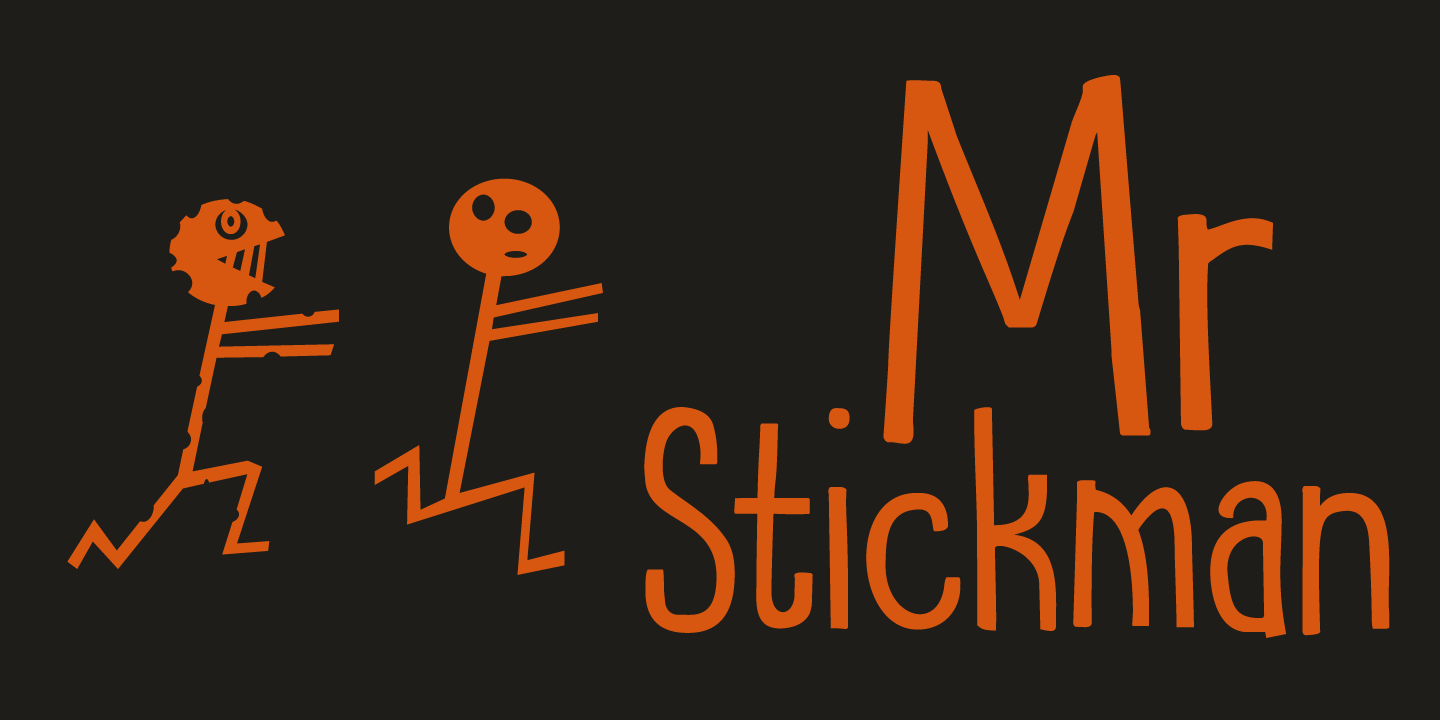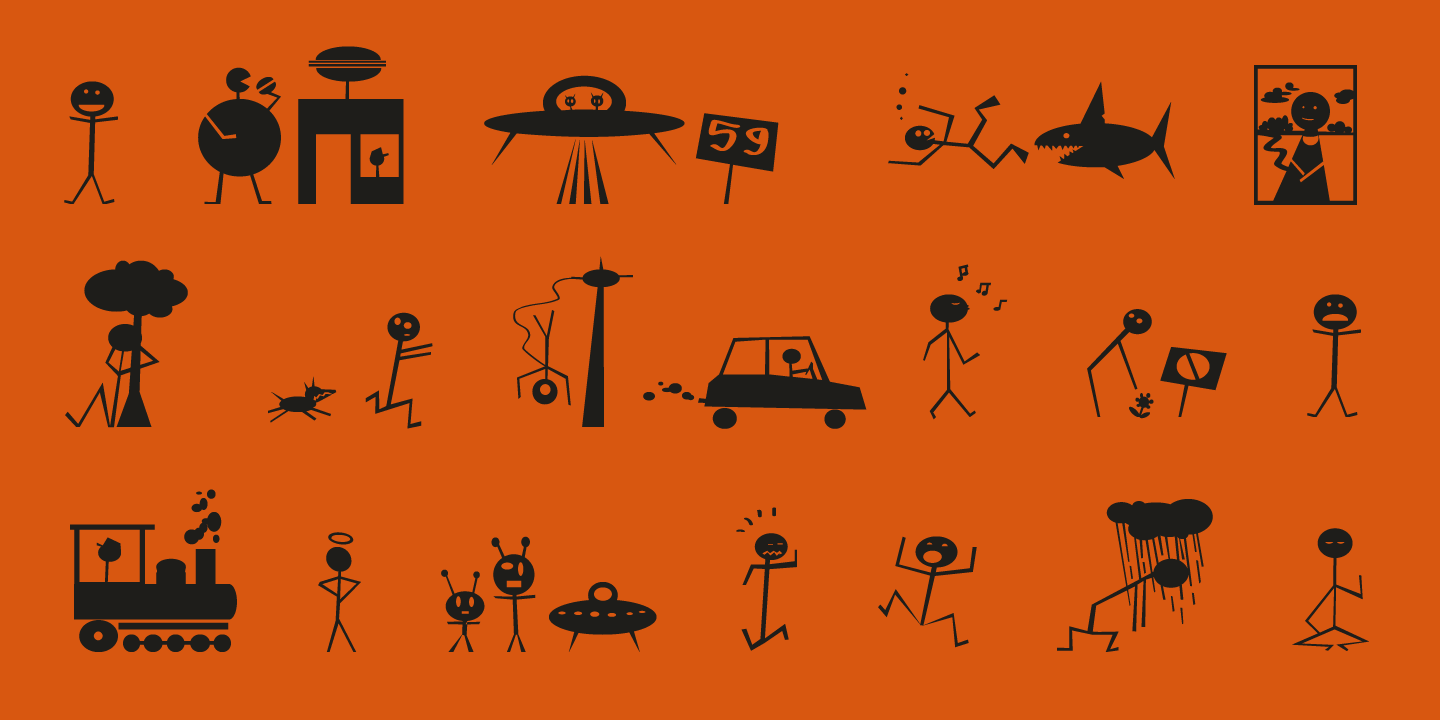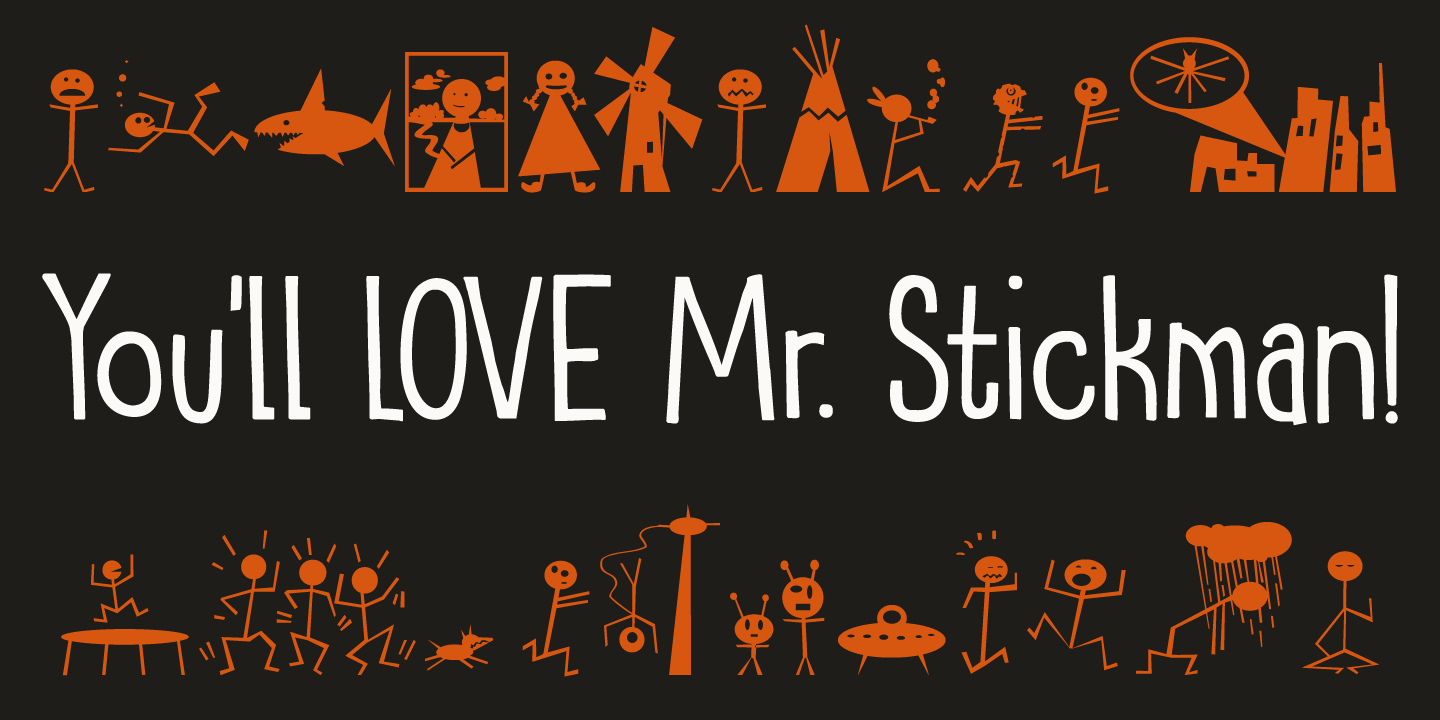
Mr Stickman
Font Family by Hanoded
Mr Stickman is a happy clappy kind of font, inspired by an older font of mine called Oranjerie. Oranjerie is an all caps typeface, but Mr Stickman comes with lower case letters - AND - a Stickman Action Figures pack! What more could you possibly want?